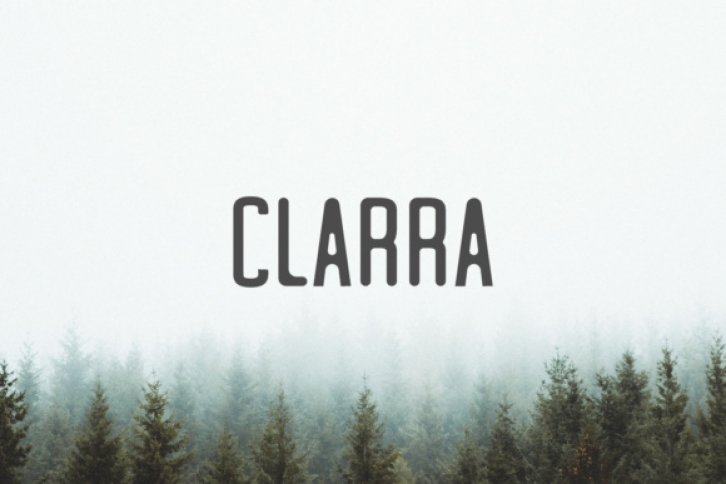
The Clarra is a strong and smooth rounded sans serif family. It includes 5 weights which can be used to create logos, texts, presentations, posters, magazines, notices, and many other business related design. It looks gorgeous in all caps with a wide-set spacing if you want to try a classy look, or beautiful on its own in capital and lowercase letters for something completely timeless.